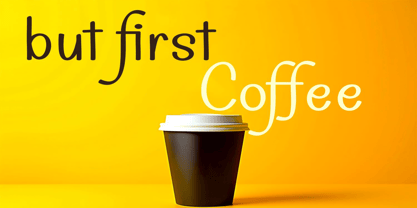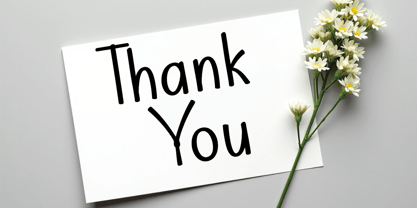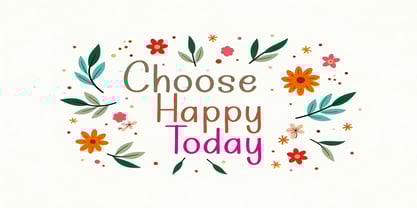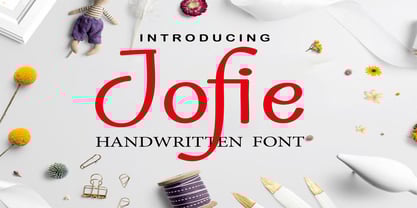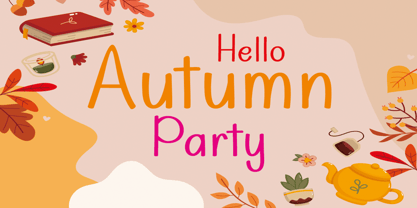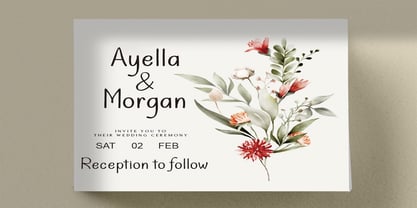
Jofie Handwritten
by DonyaDesign
The Jofie Handwritten Font Family was designed by Teuku Muslyawan and published by DonyaDesign. Jofie Handwritten contains 1 styles. More about this family
Jofie is a stunning handwritten font that features a beautifully crafted character set, blending classic decorative copper script with a modern flair. Designed with meticulous attention to detail, this font exudes elegance and charm. Jofie is appealing due to its smooth, clean lines and feminine, sensual, and glamorous aesthetic, making it exceptionally easy to read. It also includes a variety of alternative styles, enhancing its versatility for numerous applications. The classic design is perfect for formal uses such as invitations, labels, restaurant menus, logos, fashion branding, makeup packaging, stationery, novels, magazines, books, greeting and wedding cards, and various advertising needs. Additionally, Jofie offers multilingual support, ensuring it can be used across different languages. Enjoy the font!
Designers: Teuku Muslyawan
Foundry: DonyaDesign